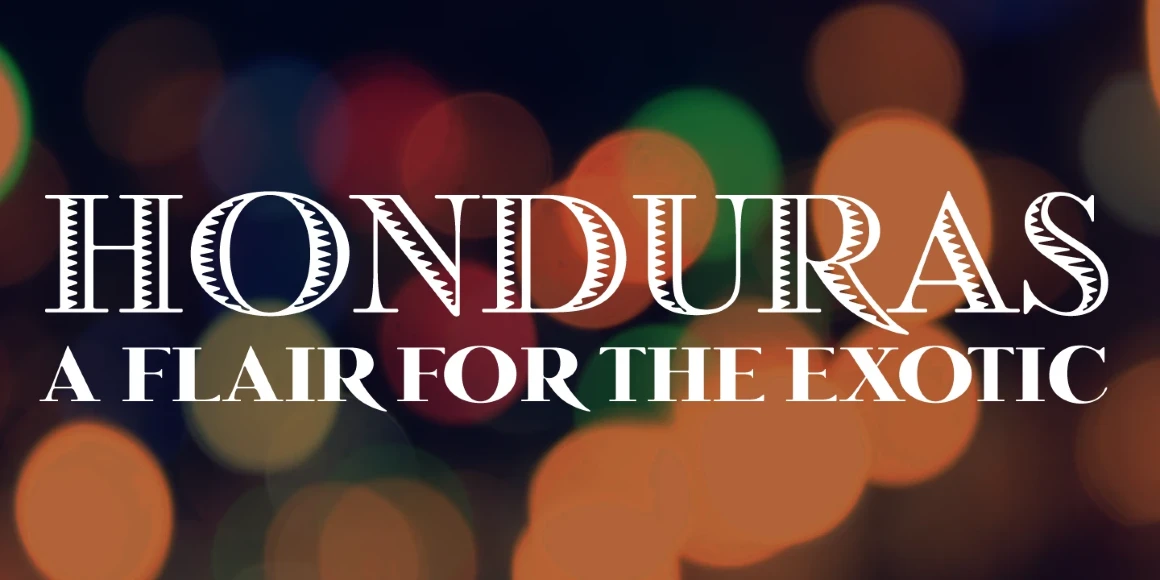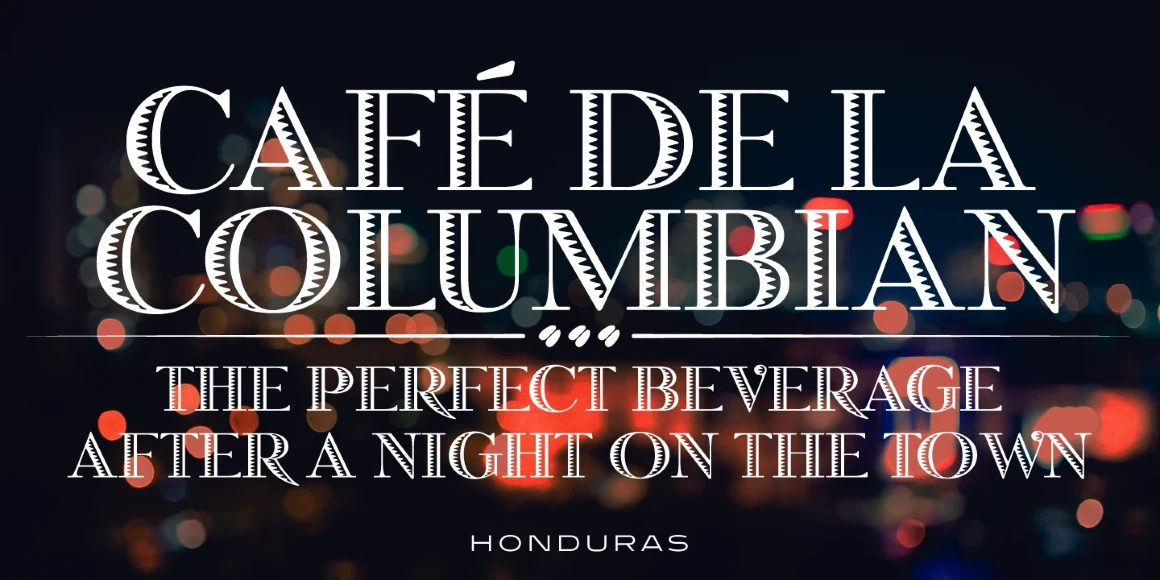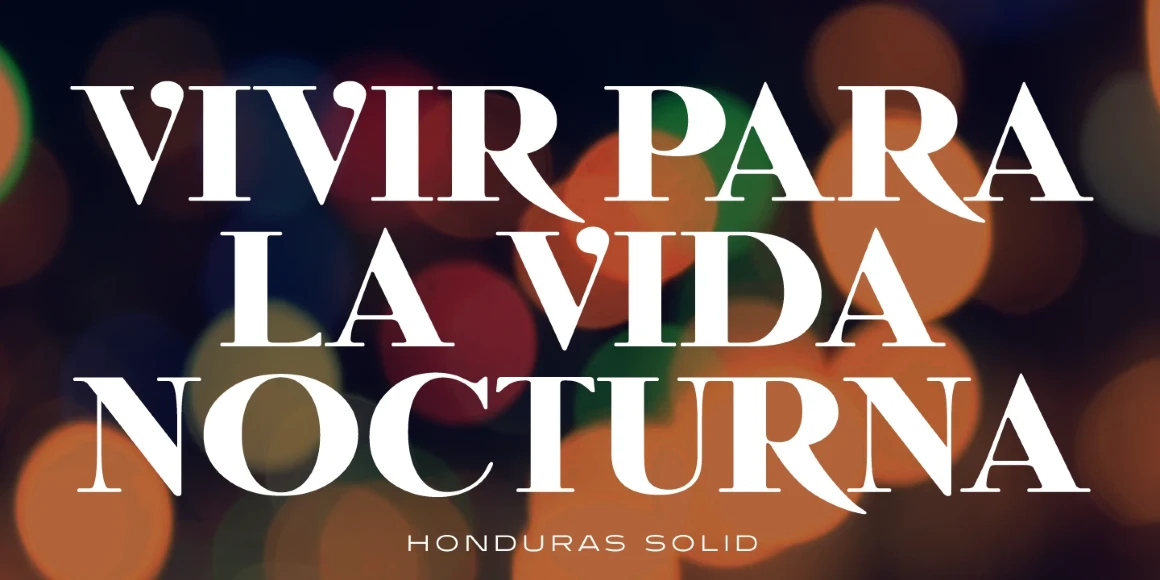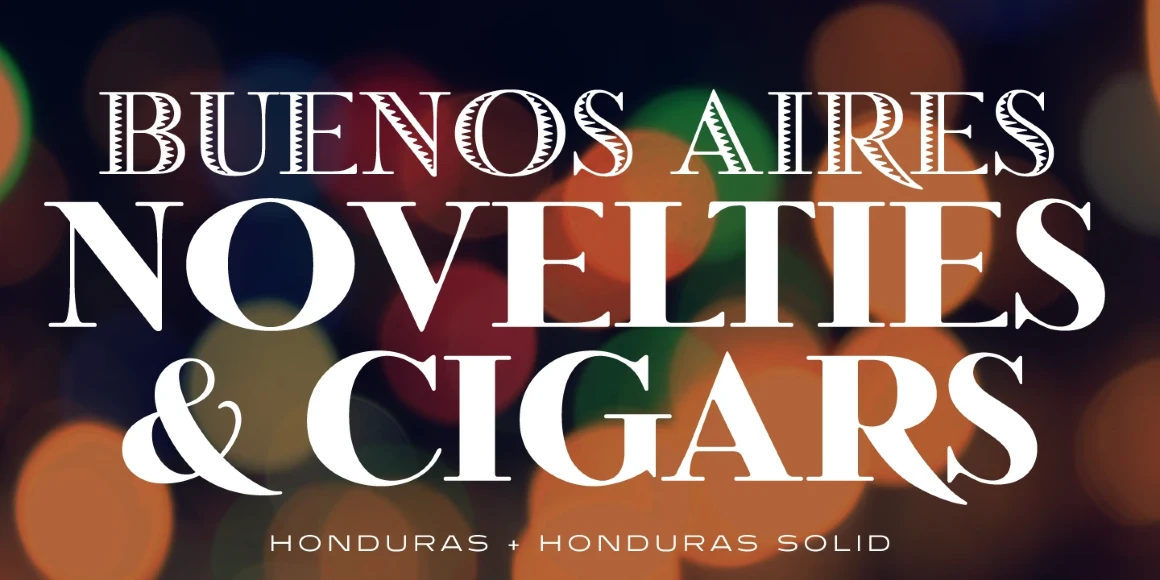
Honduras
Honduras is a decorative font family. The design is based on the typeface named either ‘Albert’ or ‘Select’ by Albert Augspurg of Lettergieterij Amsterdam, circa 1936. The initial digital letterforms of Honduras were manufactured exclusively for the Red Rooster Collection by Paul Hickson (P&P Hickson), and Steve Jackaman (ITF) produced its full commercial version in 1993. Honduras is bold and exotic, much like its namesake, and the family performs ideally at display and subhead sizes.
Honduras Regular
Honduras Solid